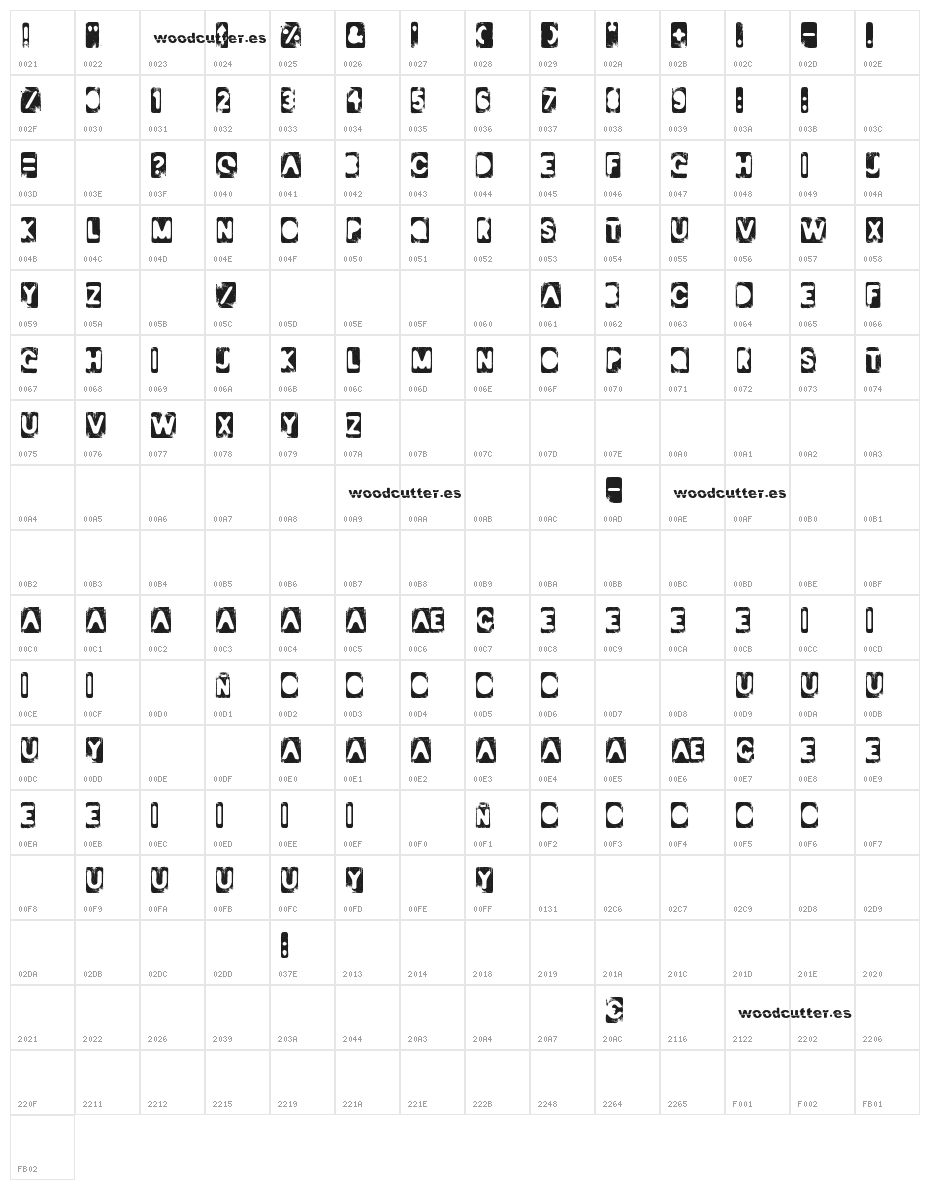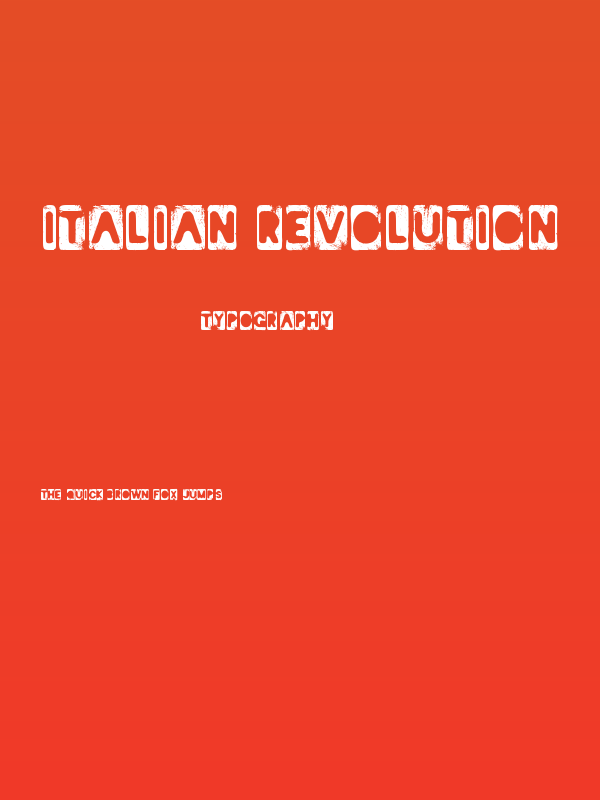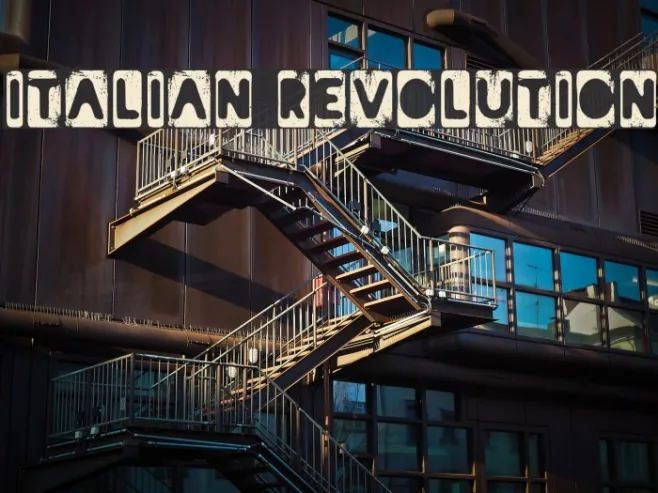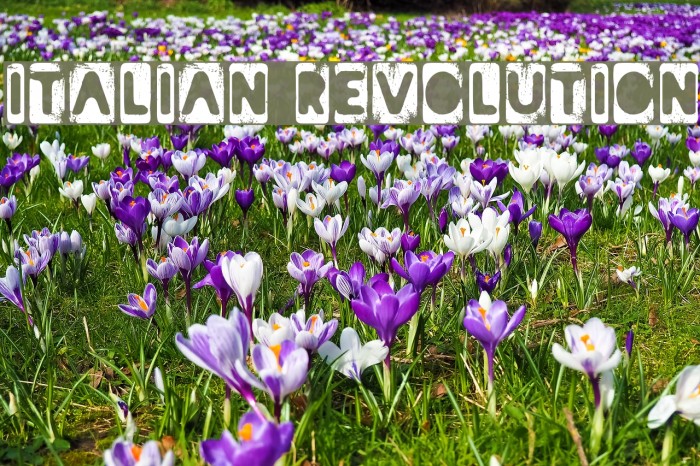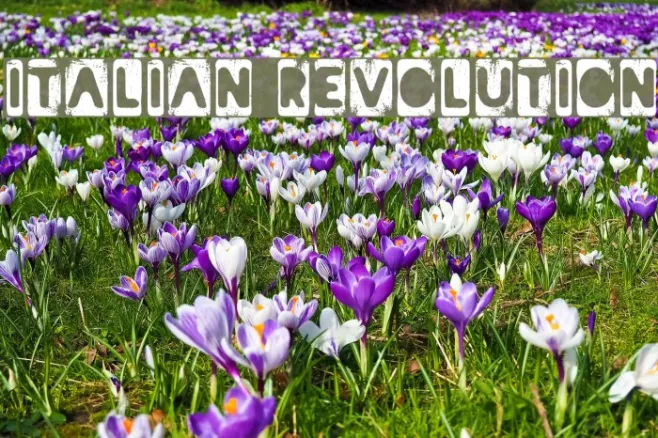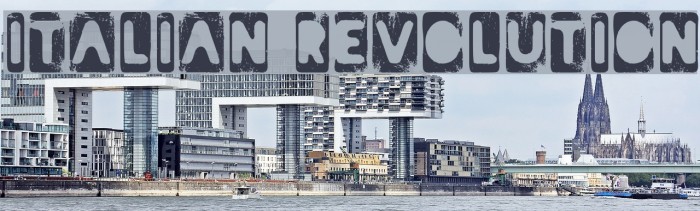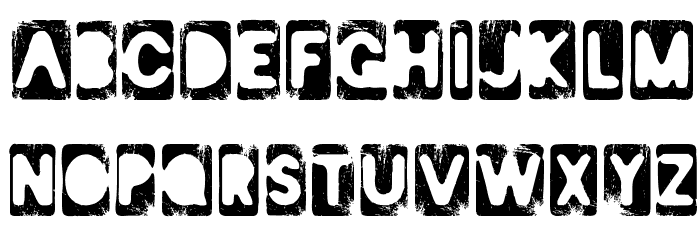
Italian Revolution Font
Italian Revolution Description
This font features a bold, distressed style with a grunge texture that gives it a rugged and rebellious appearance. Each character is enclosed in a blocky, square-like shape, with rough edges and a worn-out look, reminiscent of vintage stencils or graffiti. The uppercase and lowercase letters maintain a consistent style, while the numbers and special characters follow the same distressed theme. The font's unique aesthetic makes it stand out, ideal for projects that require a bold statement or an edgy, urban feel.
ITALIAN-REVOLUTION UPPERCASE
ITALIAN-REVOLUTION LOWERCASE
ITALIAN-REVOLUTION OTHER CHARS
| Overall Style | Vintage, Grunge |
| Proposed Projects | Ideal for posters, album covers, streetwear branding, or any project needing an edgy, urban aesthetic. |